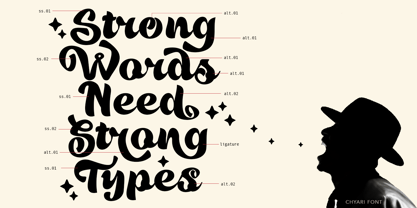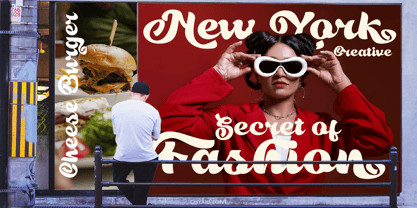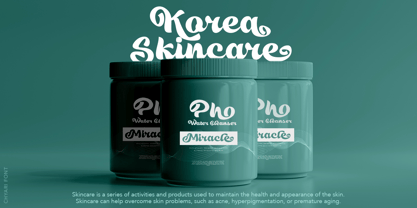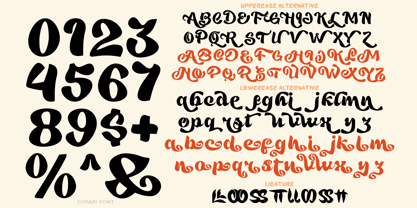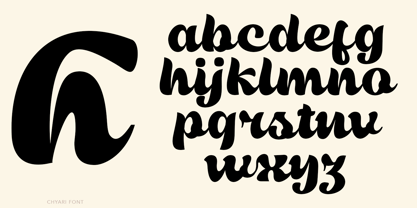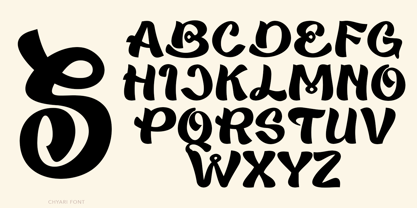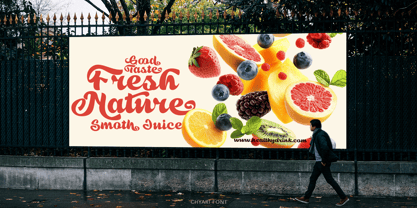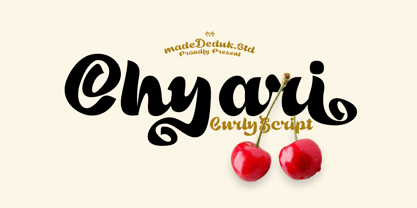
Chyari
by madeDeduk
The Chyari Font Family was designed by madededuk and published by madeDeduk. Chyari contains 1 styles. More about this family
Chyari is a groovy font 80's script style comes with curly style with a lot alternative and ligature. Groovy and refined you can explore and combine creating rhythm for comfortable reading. This font perfect for any projects, such logotype, stickers, greeting / wedding cards, packaging design, headlines, brand identity, posters, magazines, books, Instagram, websites, and many more.
Designers: madededuk
Foundry: madeDeduk